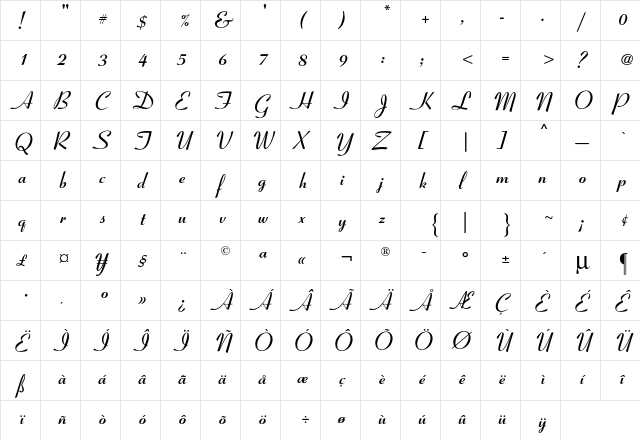
Coronet CG Bold
| Foundry | Miles Inc |
Design Context for Coronet CG Typeface
Coronet CG takes a measured approach to typography — its balanced proportions and neutral character make it a reliable workhorse for both digital and print work. The heavy weight commands attention and anchors typographic hierarchies.